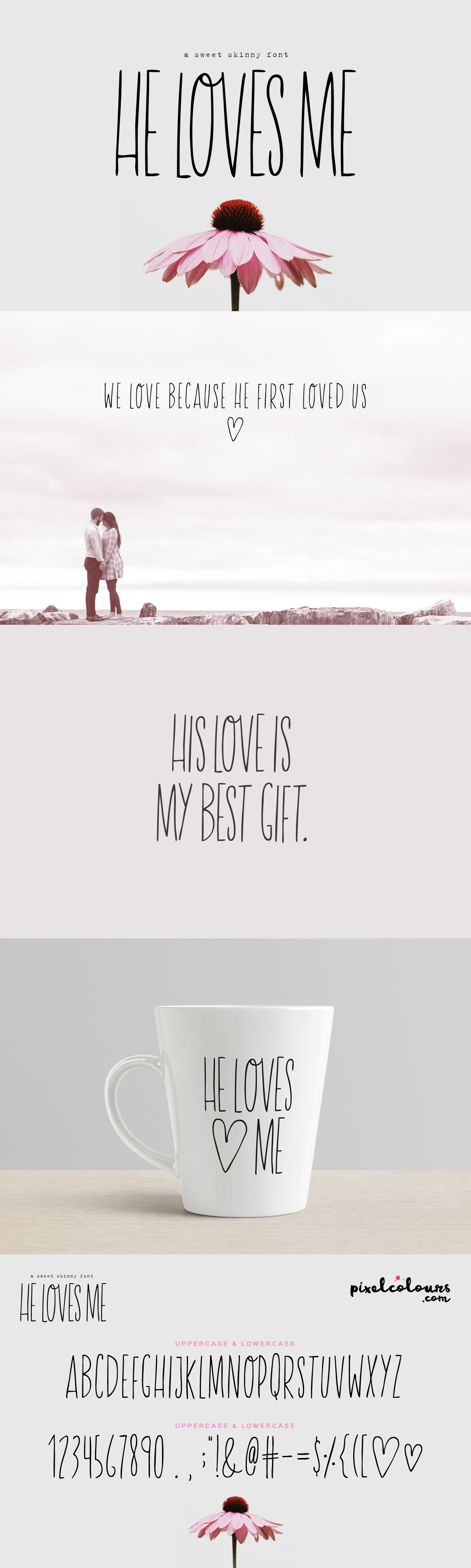
Skinny Font He Loves Me
A classic but original, imperfect skinny font with lots of sweetness!
This font looks super beautiful in titles, recipes, social media posts, quotes, etc.
- Uppercase characters